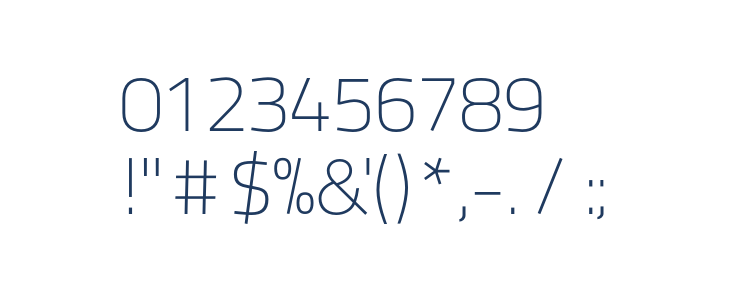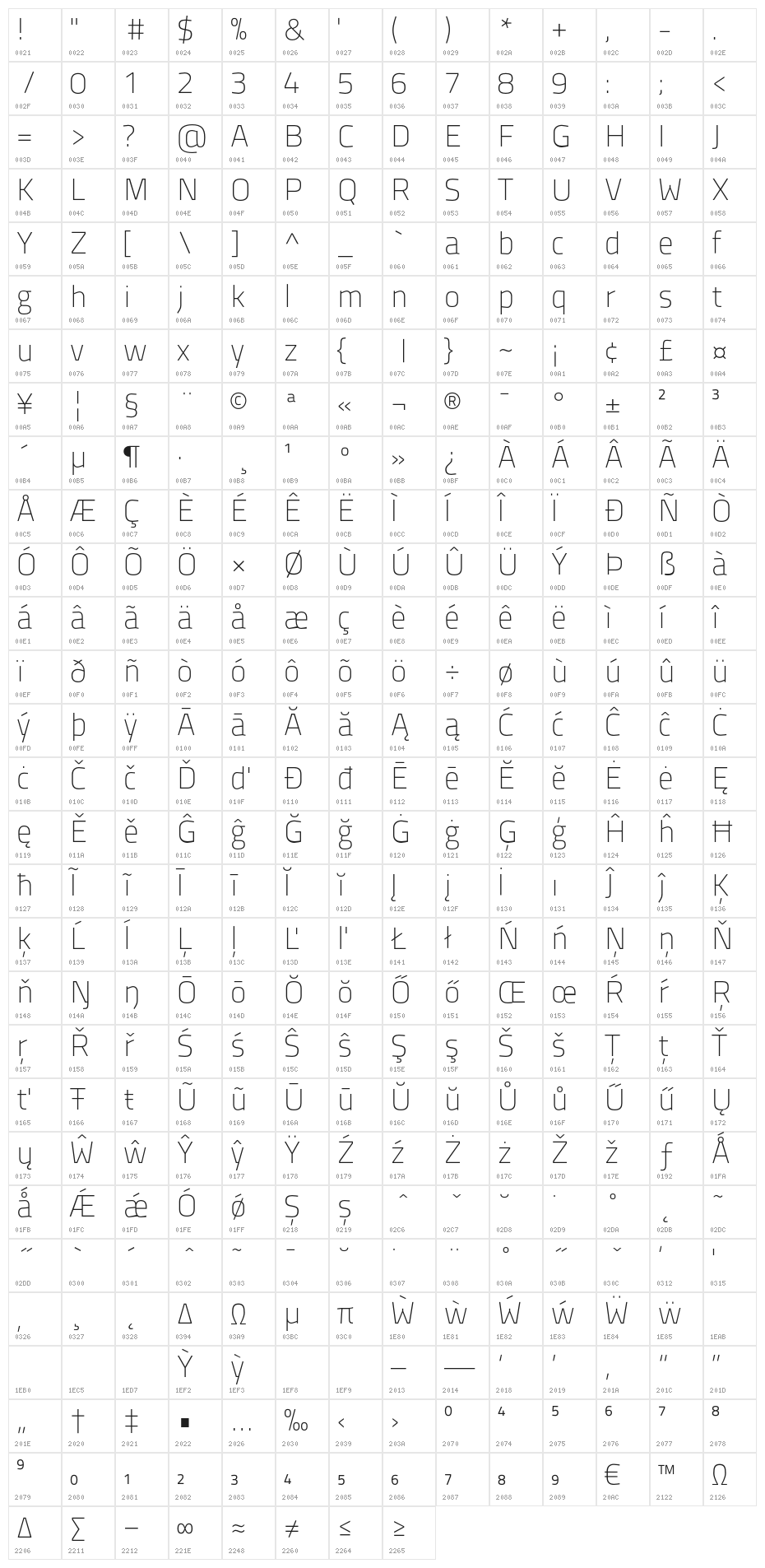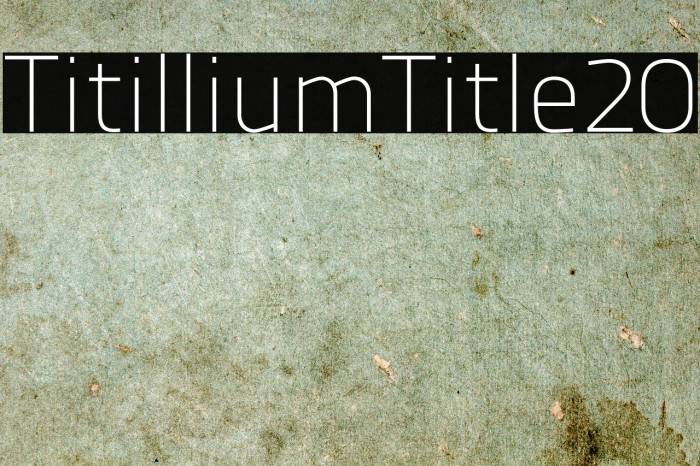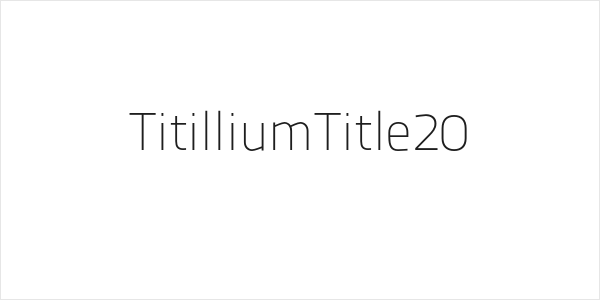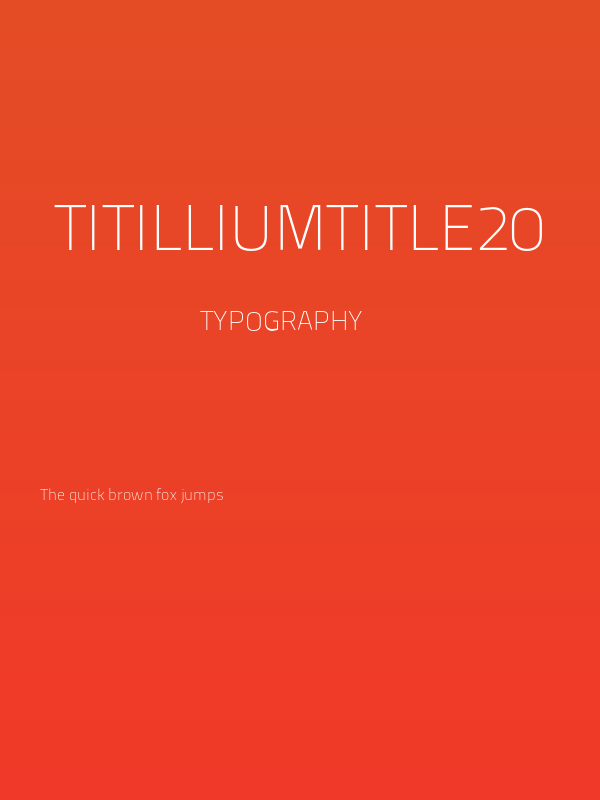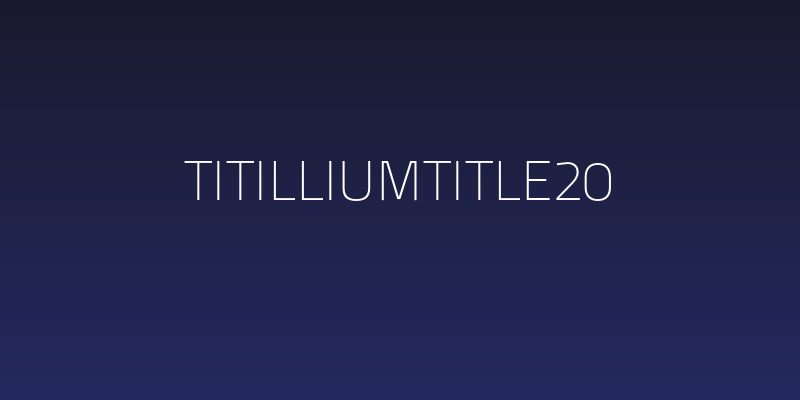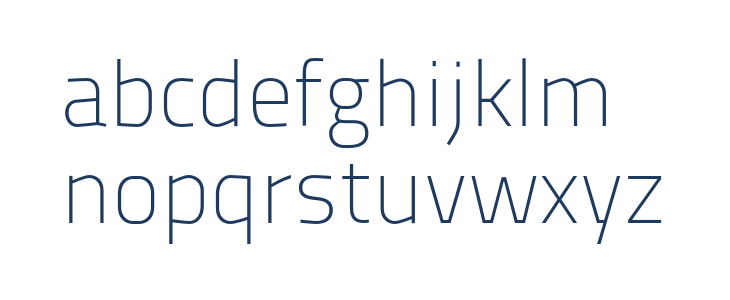
TitilliumTitle20 Font
TitilliumTitle20 Description
This font features a clean and modern sans-serif design with a geometric structure. The characters are well-proportioned, offering a balanced and harmonious appearance. The uppercase letters are slightly taller than the lowercase, providing a clear distinction. The numerals are consistent in height with the uppercase letters, ensuring readability. Special characters are designed with simplicity, maintaining the overall minimalist aesthetic. The font's uniform stroke width contributes to its sleek and contemporary look, making it versatile for various design applications.